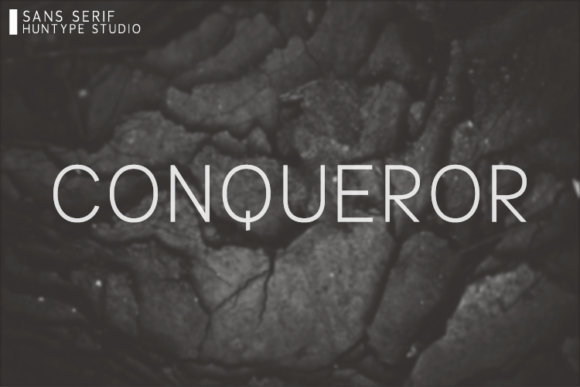
Introducing the Conqueror Font: The Epitome of Bold and Modern Typography
Embark on a captivating typographical journey with the Conqueror Font, an all-caps sans serif masterpiece crafted to instill confidence and make a lasting impression. Its meticulously designed strokes, smooth curves, and a hint of contrast orchestrate a symphony of elegance and boldness.
Unleash the Conqueror's versatility and witness its transformative power across a myriad of design landscapes. From logos that command attention to branding that exudes sophistication, this font effortlessly elevates every project it graces. Its clean lines and modern aesthetic seamlessly integrate into web headings, creating a captivating online presence.
Immerse yourself in the world of Conqueror and discover a font that transcends the ordinary. Its bold presence captivates the eye, commanding attention and leaving an unforgettable mark. Whether you seek to create logos that embody strength, branding that radiates professionalism, or web headings that entice engagement, the Conqueror Font is your steadfast companion.
Indulge in the Conqueror's charm and watch as your designs soar to new heights. Its versatility empowers you to craft a myriad of typographical wonders, from sleek and contemporary to timeless and classic. Embrace the Conqueror's allure and embark on a design odyssey where boldness and modernity reign supreme.